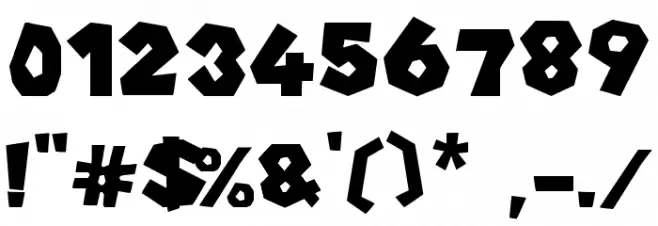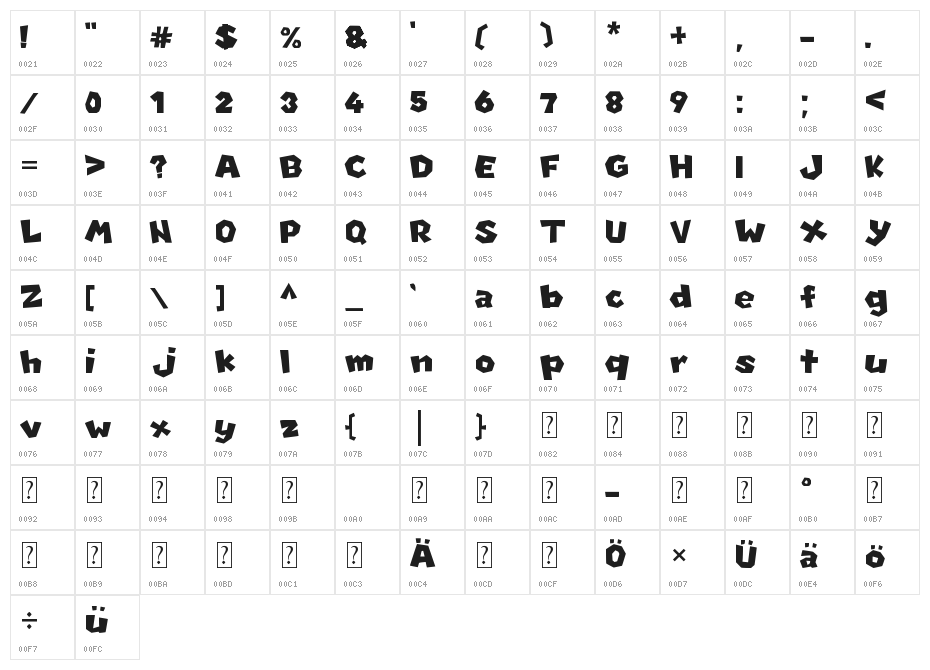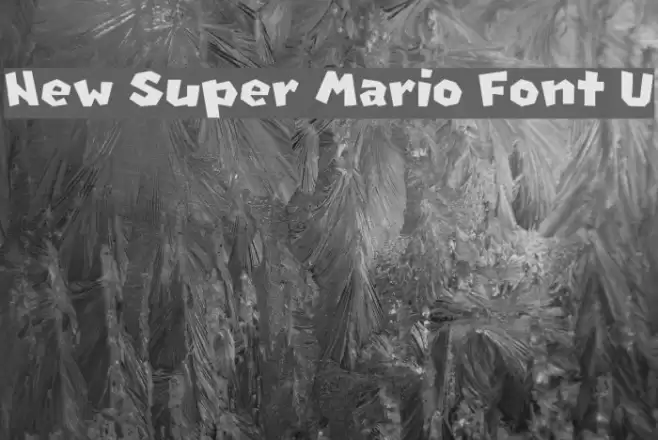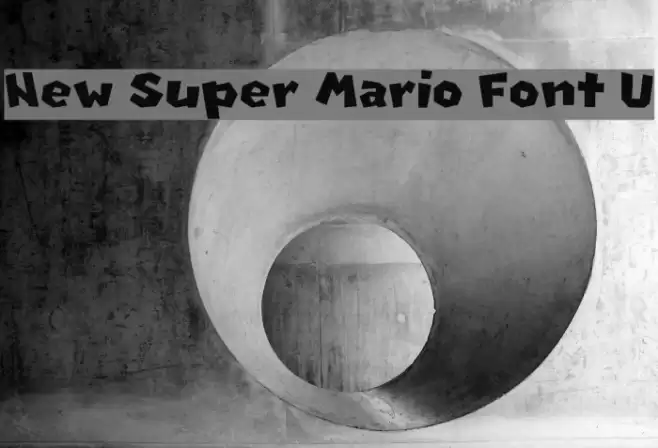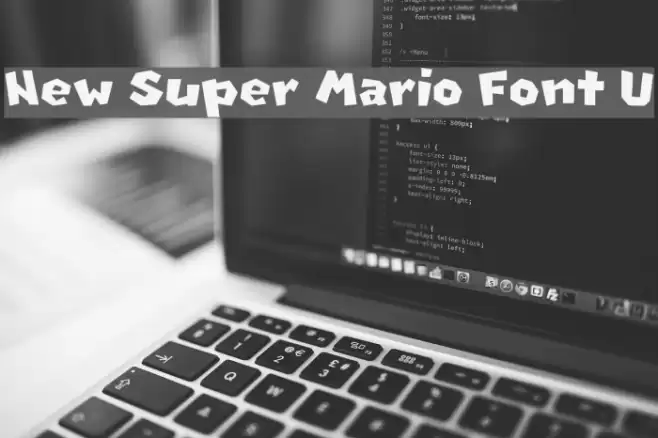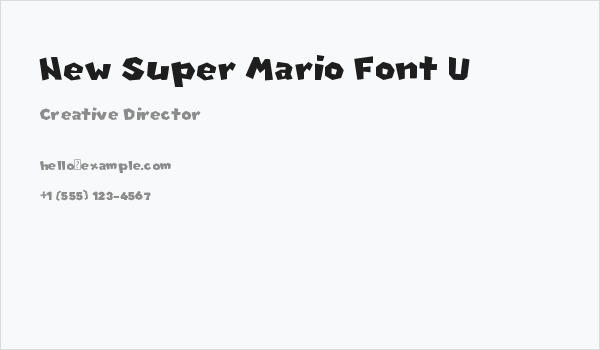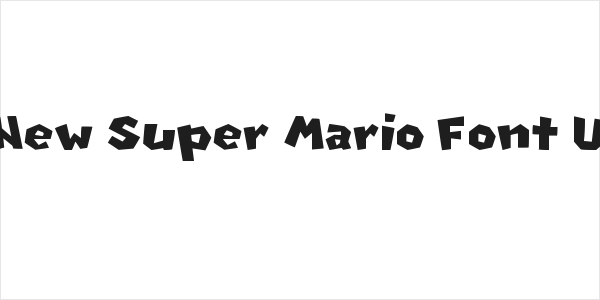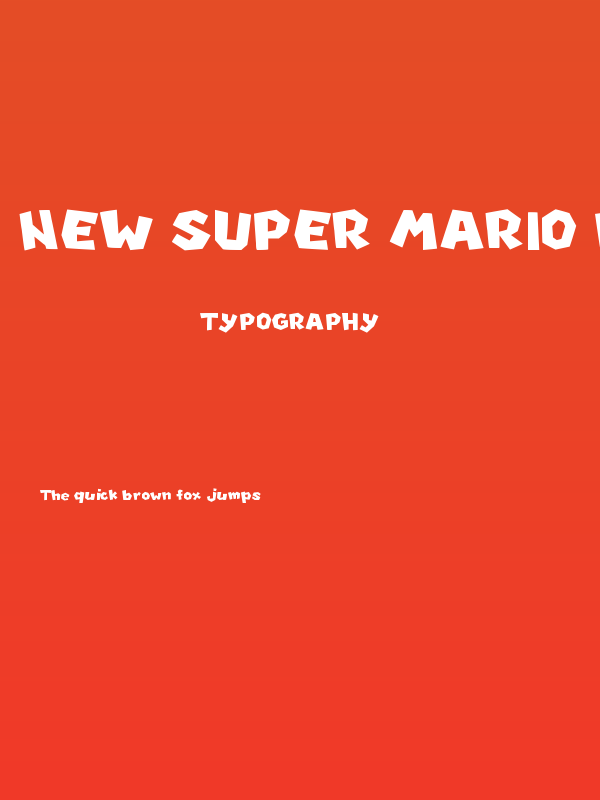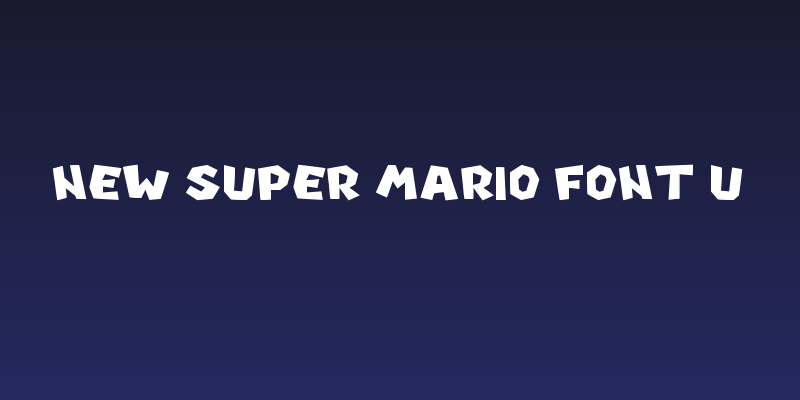
New Super Mario Font U Font
New Super Mario Font U Description
This font features a bold and playful design, characterized by its chunky, angular letters that convey a sense of fun and energy. The uppercase and lowercase letters maintain a consistent style, with exaggerated angles and a slightly irregular form that adds to its whimsical appearance. The numbers and special characters follow the same design principles, ensuring a cohesive look across all glyphs. This font is ideal for projects that aim to capture a lively and dynamic aesthetic, making it perfect for gaming, children's materials, or any creative endeavor that requires a touch of excitement.
| Overall Style | Playful, Energetic, Whimsical |
| Proposed Projects | Perfect for video game graphics, children's books, posters, and playful branding. |